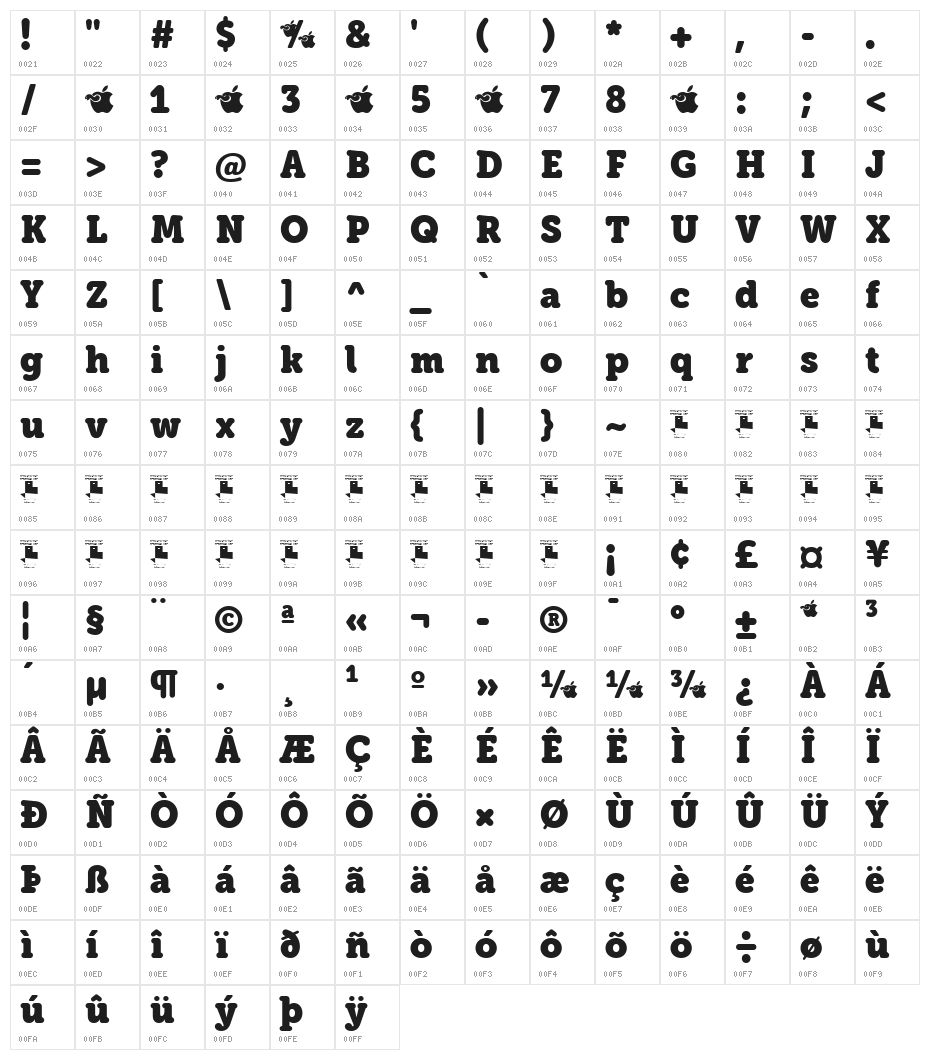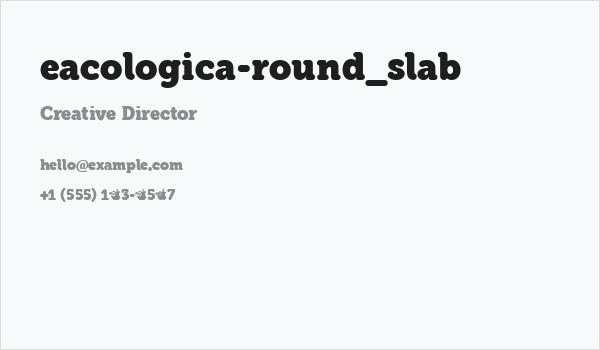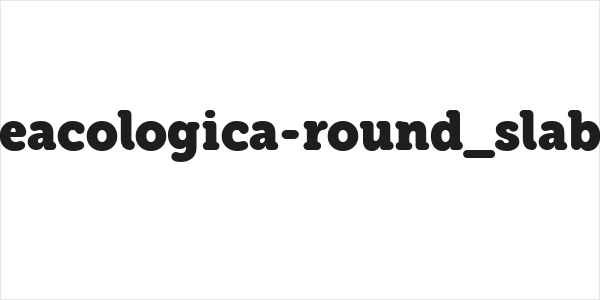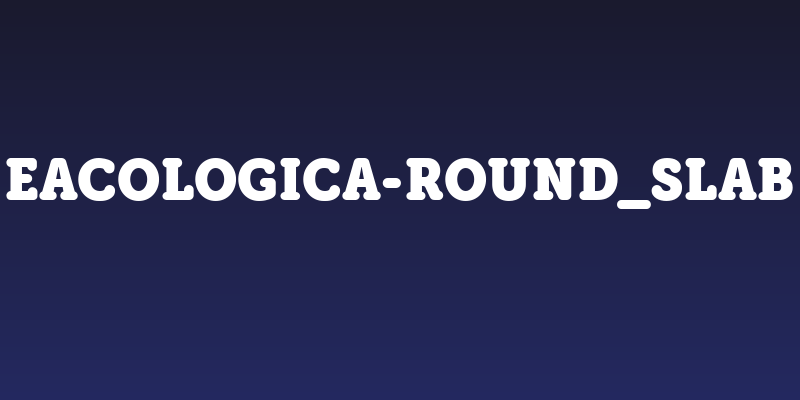
eacologica-round_slab Font
eacologica-round_slab Description
This font features a bold and rounded slab serif design, characterized by its thick, block-like serifs and smooth curves. The uppercase letters are robust and commanding, while the lowercase letters maintain a consistent weight and rounded appearance. The numbers are uniquely styled with apple motifs, adding a playful and distinctive touch. Special characters are bold and clear, ensuring readability. The overall style is modern yet playful, making it suitable for a variety of creative projects.
| Overall Style | Modern, Playful |
| Use Case | Headlines, Logos, Creative Projects |
| Proposed Projects | Ideal for branding, children's books, playful packaging, and creative advertising campaigns. |